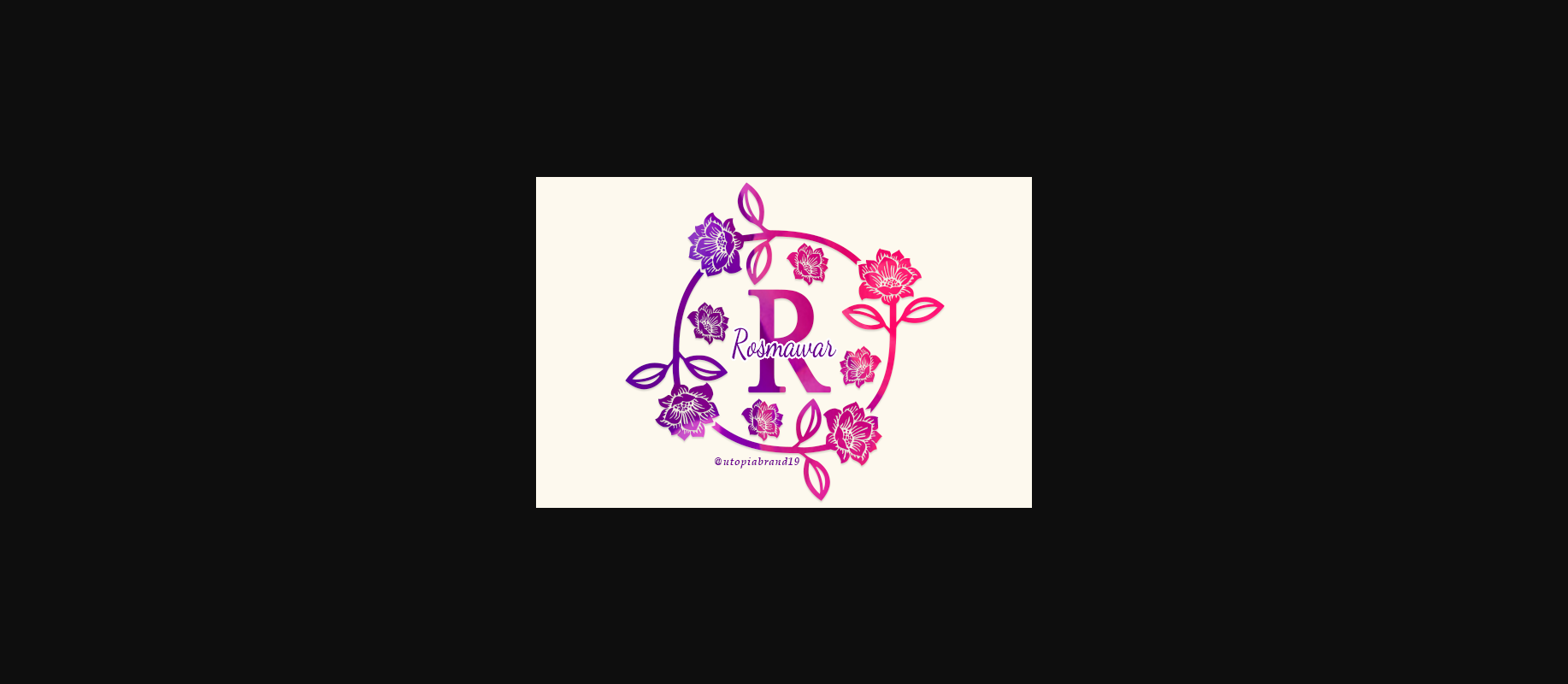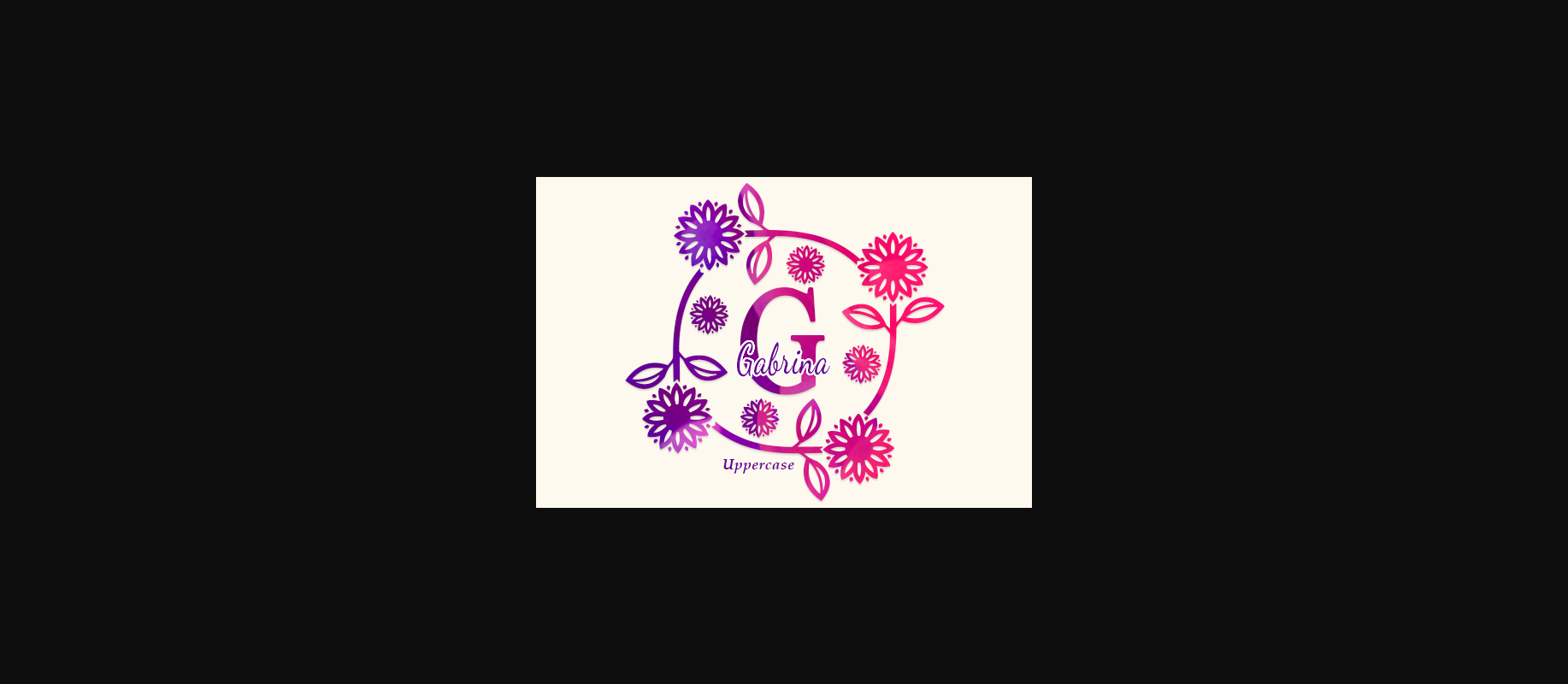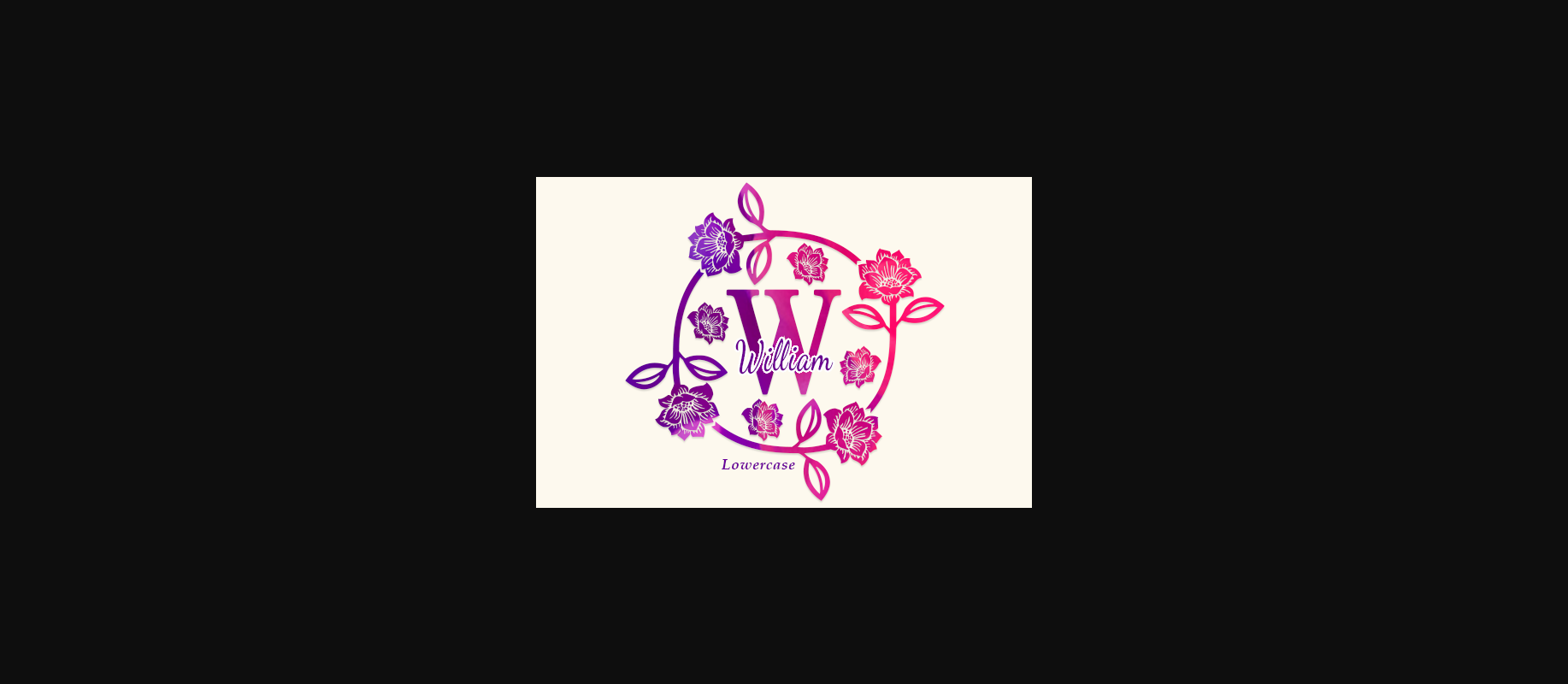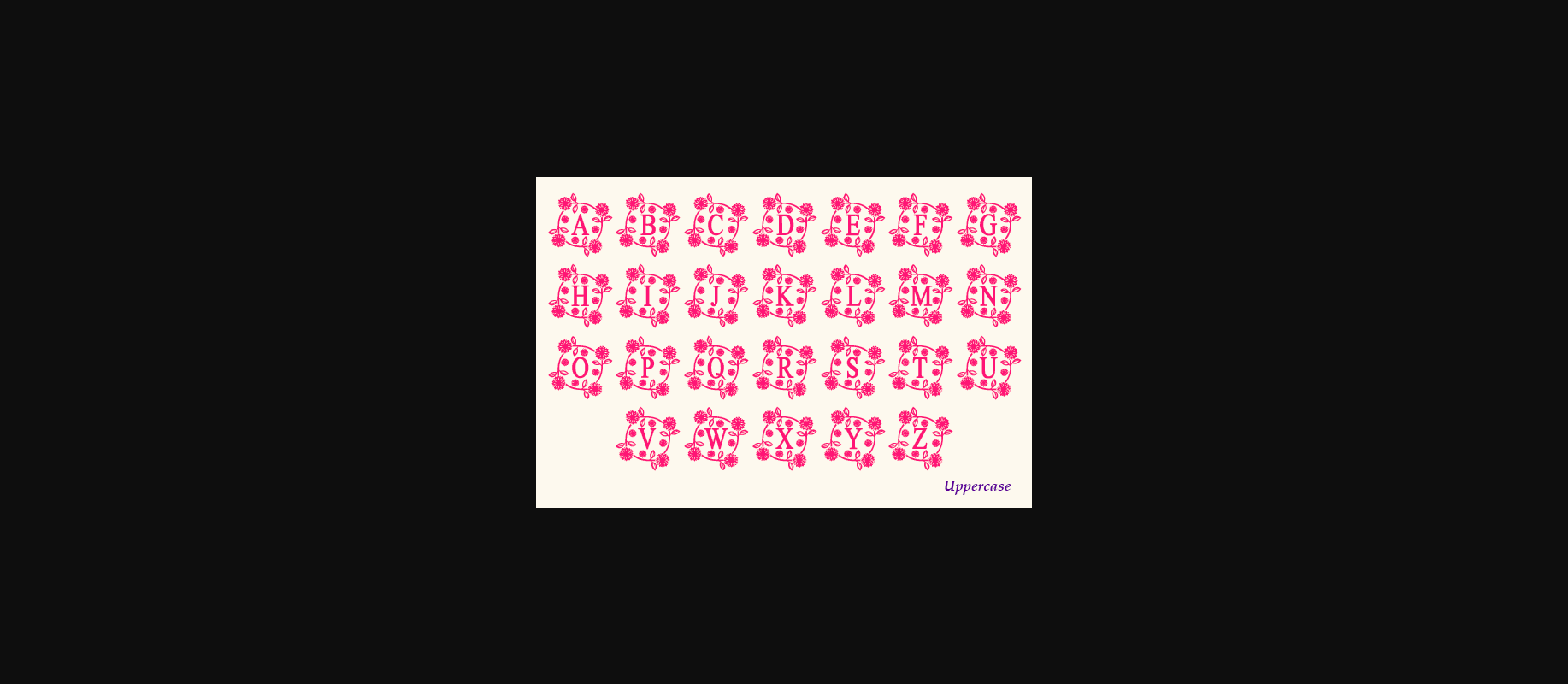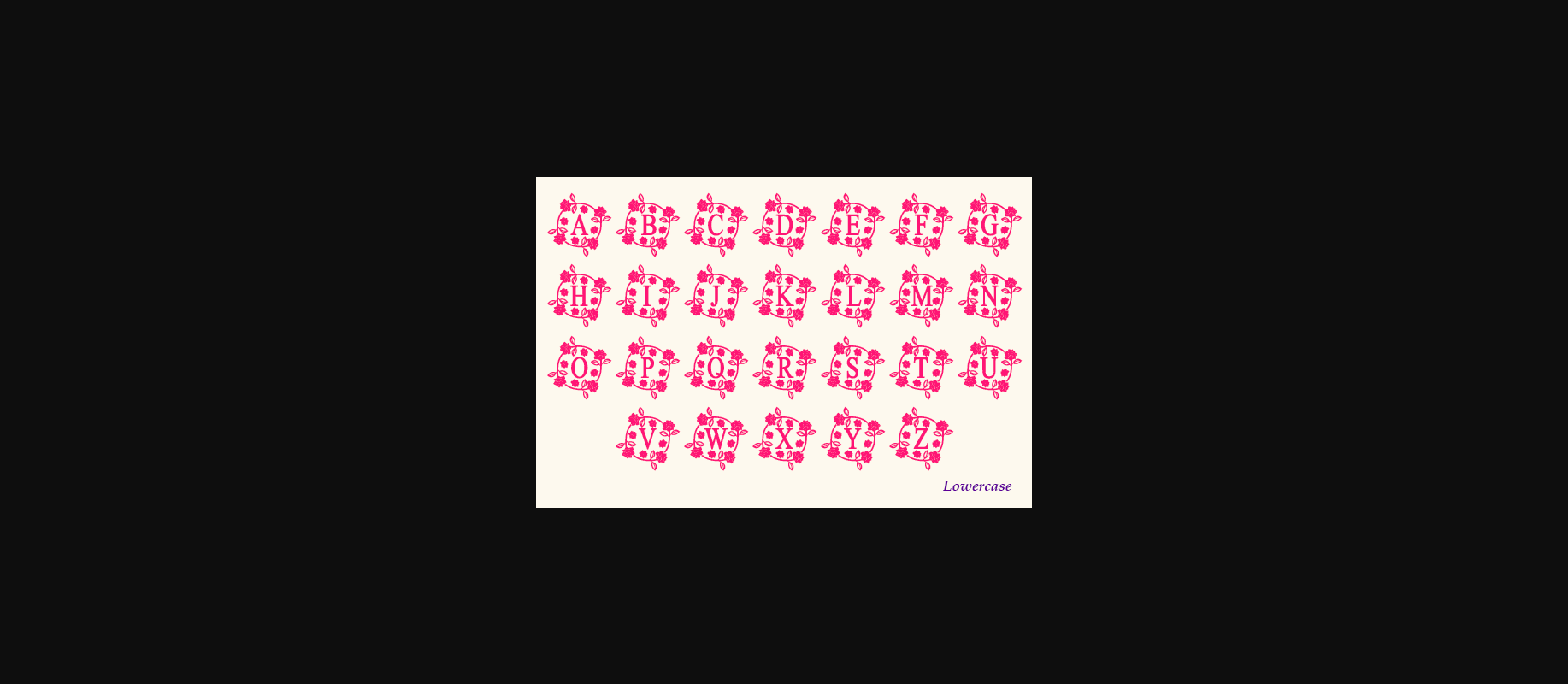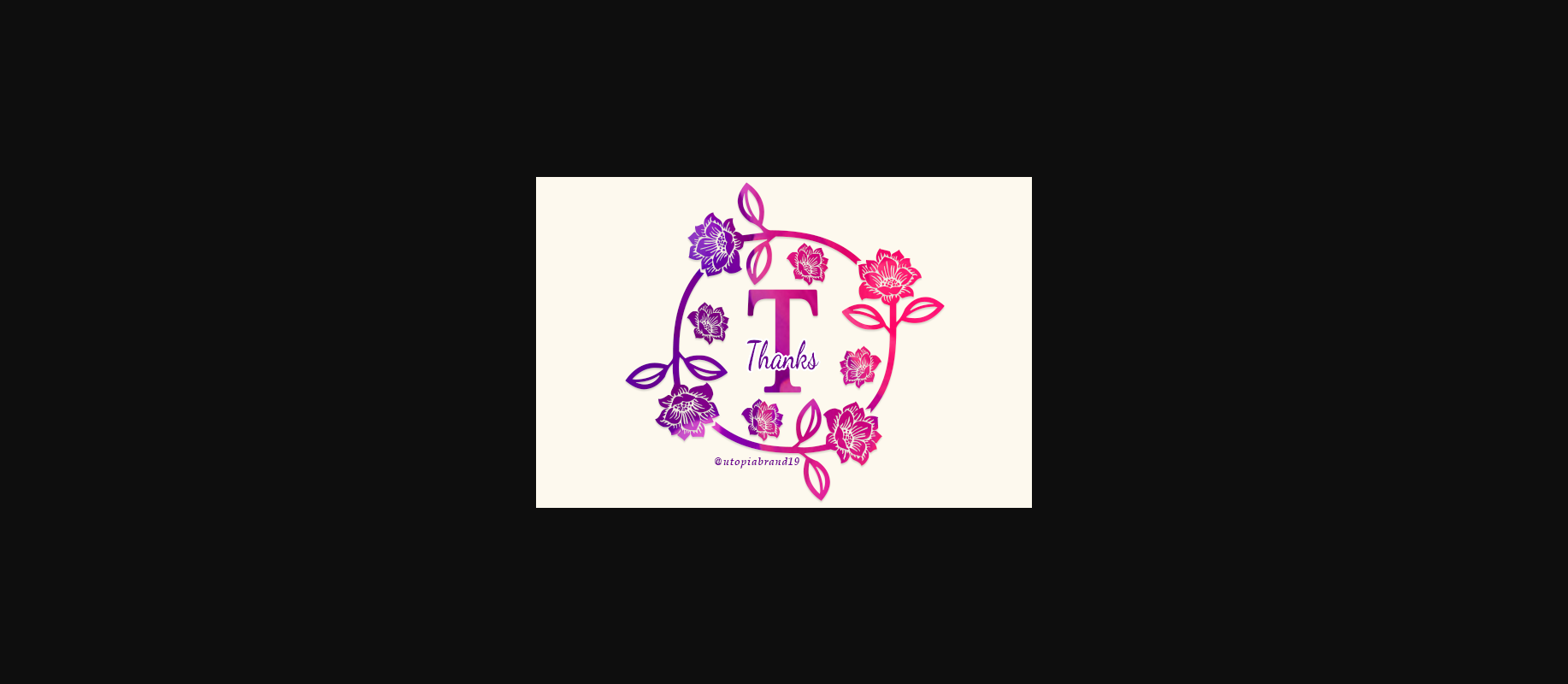
About Rosmawar Font
Rosmawar is a charming decorative font. Fall in love with its authentic feel and use it to create gorgeous wedding invitations, beautiful stationary art, eye-catching social media posts, and cute greeting cards.